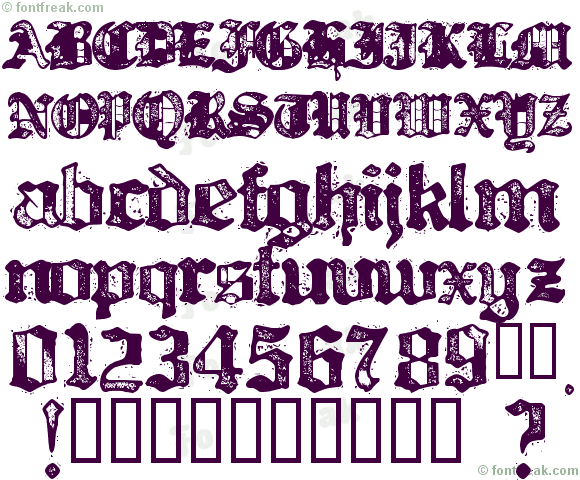
Bill Hicks 5
The Bill Hicks 5 font by Pennyzine is a captivating display typeface that offers a unique, bold aesthetic ideal for a variety of creative projects. This font falls under the category of decorative type, showcasing a distinct personality that blends both vintage and modern elements. The font features a robust stroke weight with significant contrast, giving it a striking appearance that commands attention. The uneven spacing between letters adds an organic feel, enhancing its artistic flair while retaining legibility.
The visual characteristics of Bill Hicks 5 are especially notable for their expressive, rugged edges and slightly distressed look, reminiscent of hand-painted signage or classic rock band posters. This makes it an excellent choice for a diverse range of applications, including movie posters where dramatic impact is essential, album covers that seek a retro vibe, and attention-grabbing advertisements for events or products. Additionally, it can be effectively utilized in restaurant menus and café branding, where a unique identity can set a business apart from competitors.
The target audience for this font includes graphic designers, small business owners, and content creators looking to infuse their projects with character and individuality. It appeals to those who appreciate a font that tells a story and evokes emotion through its design.
In summary, the Bill Hicks 5 font stands out due to its distinctive style and versatility, making it an exceptional choice for anyone aiming to make a memorable impression. With its availability as a freeware option, it’s easy to incorporate into your design toolkit. Don’t miss the opportunity to enhance your projects with this unique typeface; consider the Bill Hicks 5 font free download for your next creative endeavor.